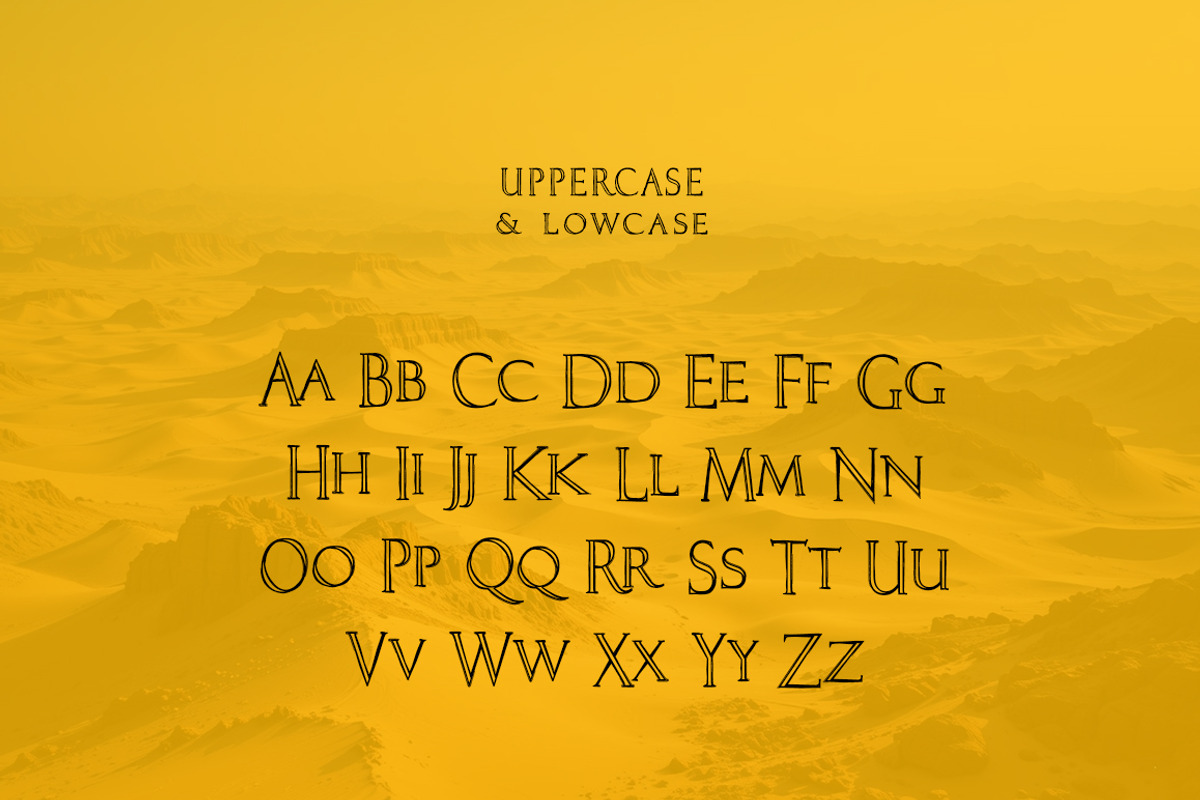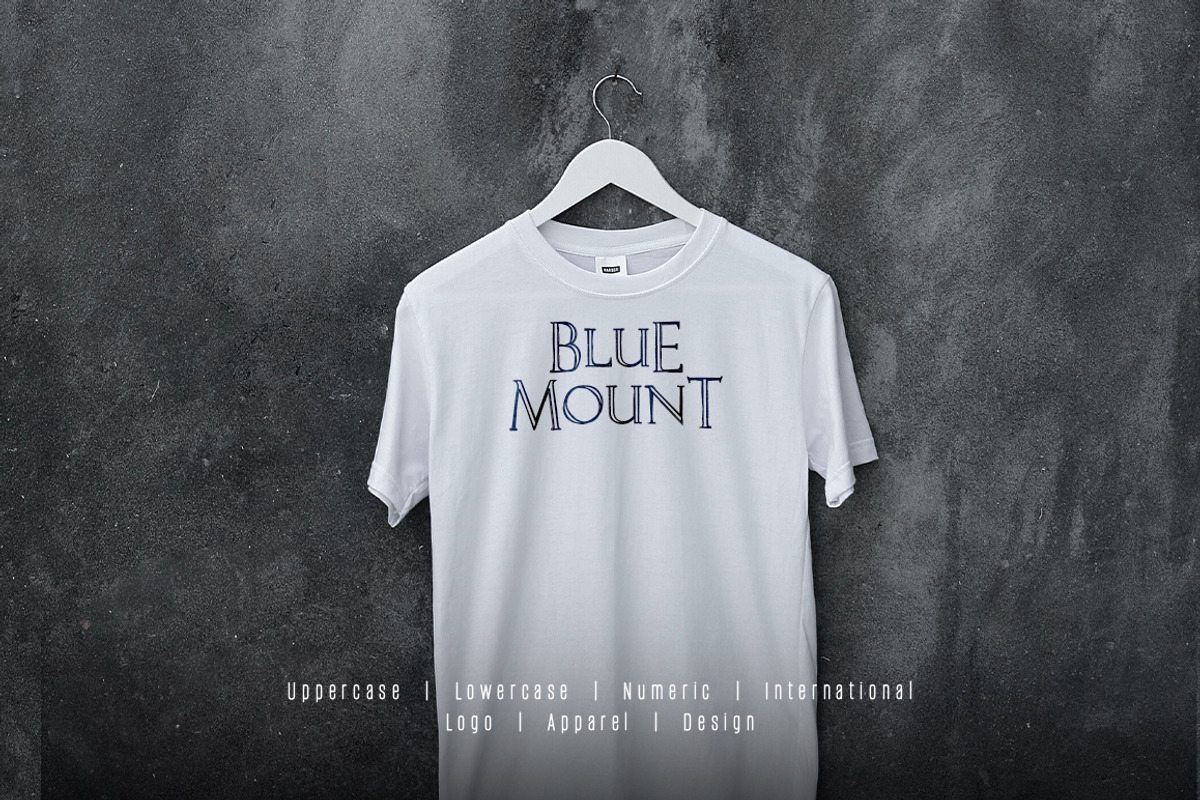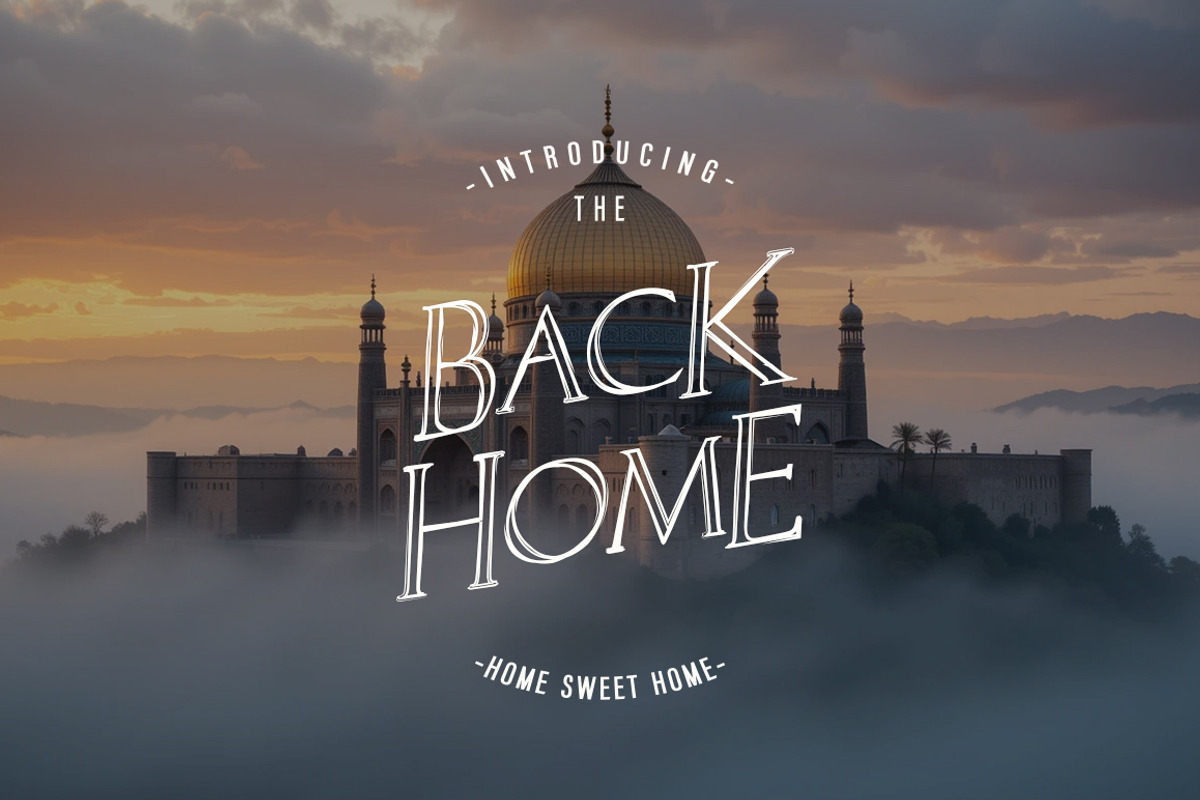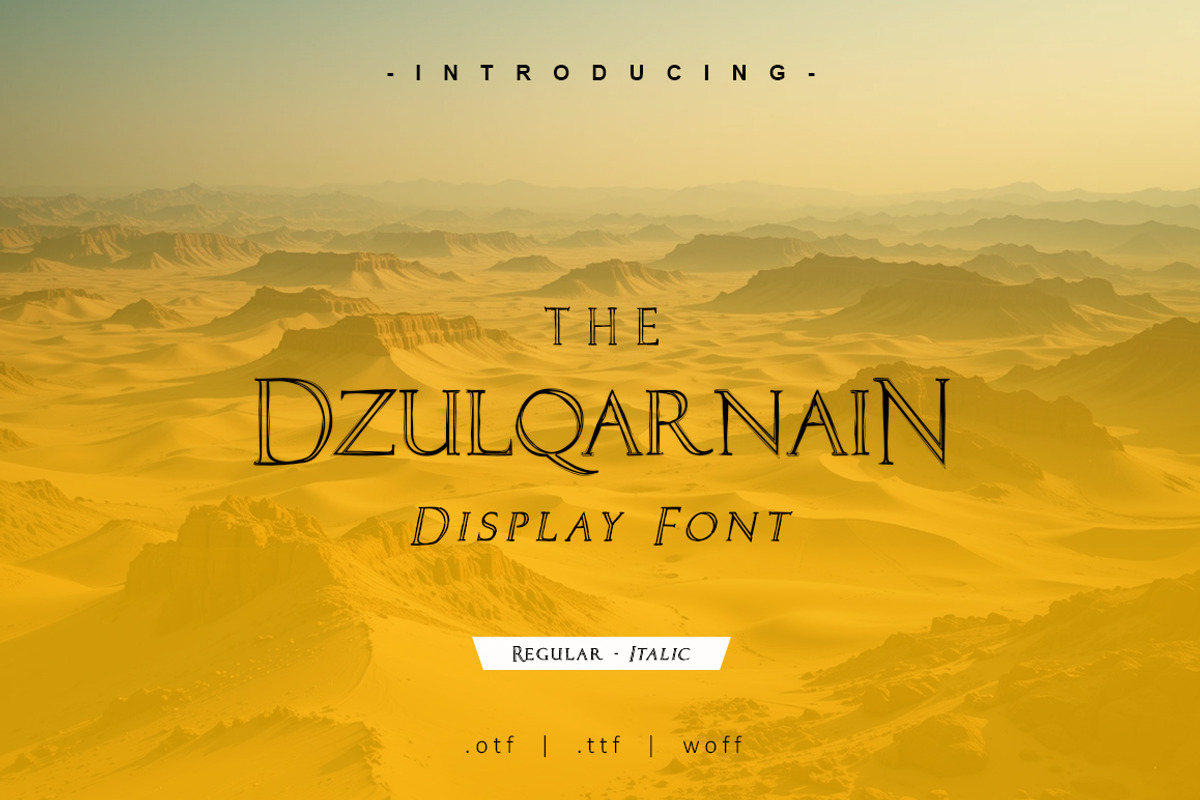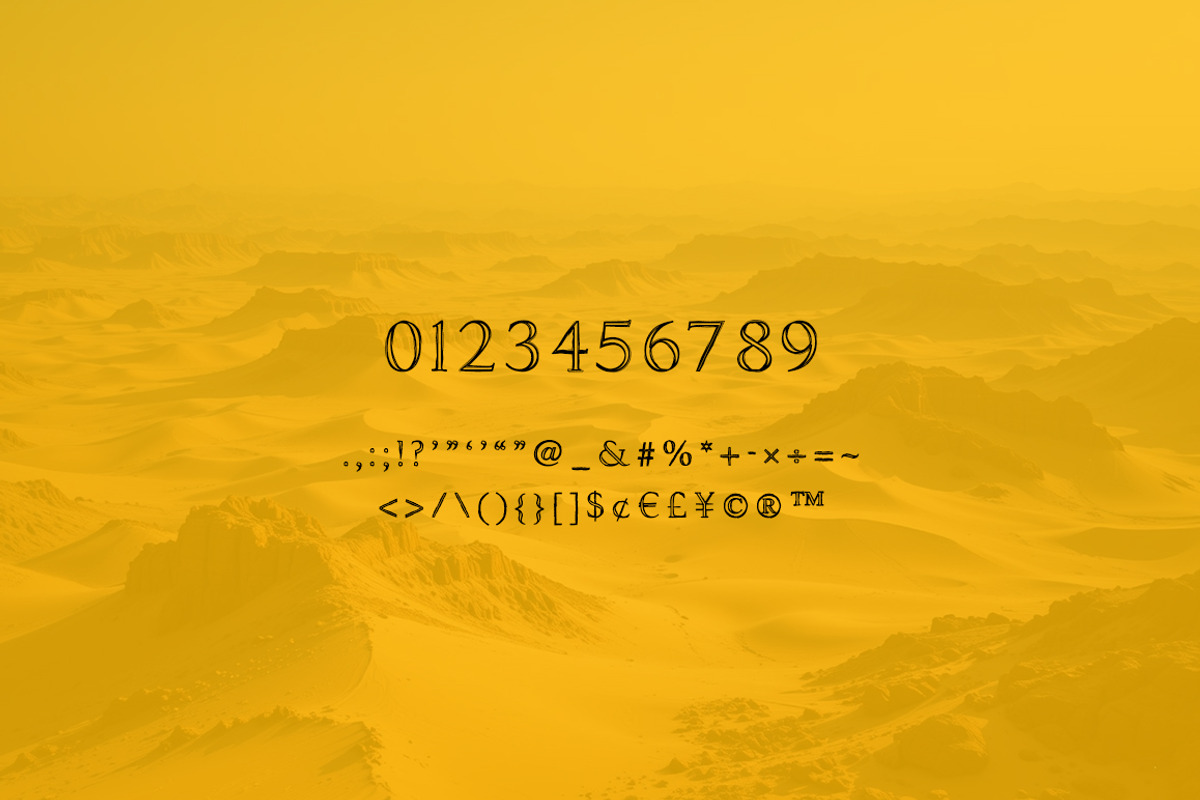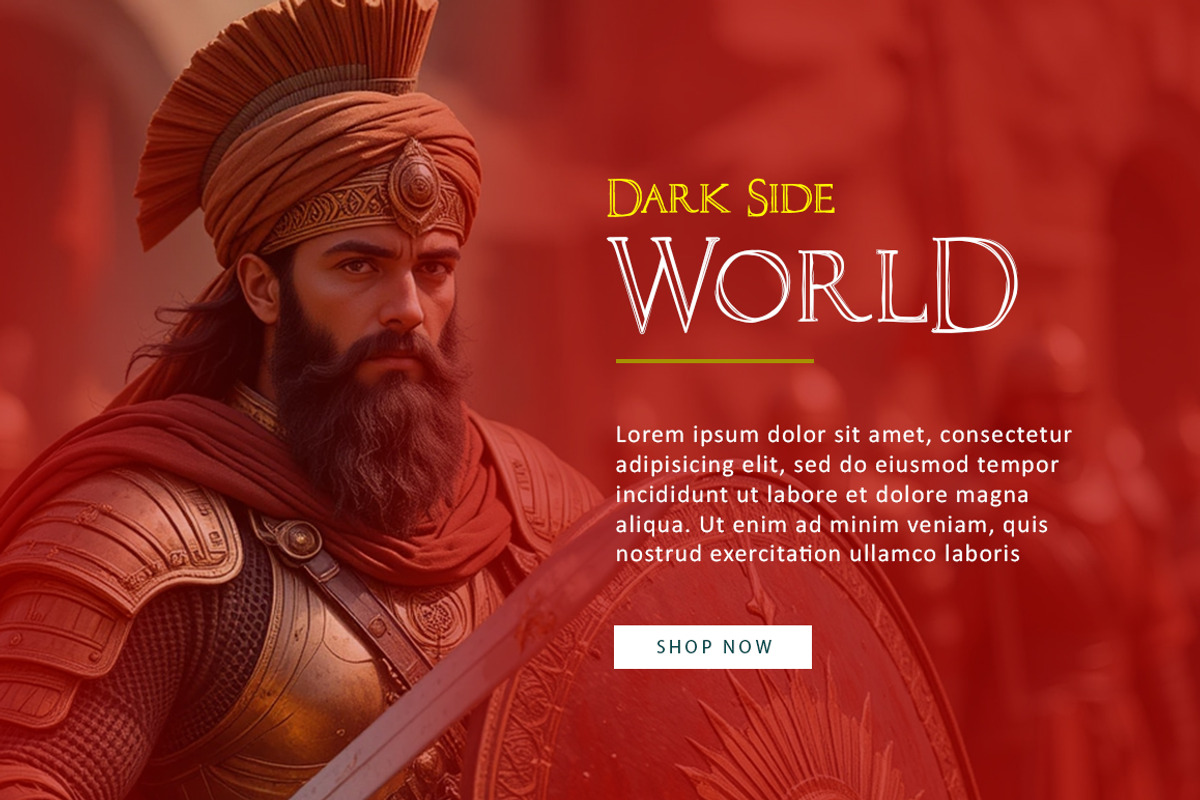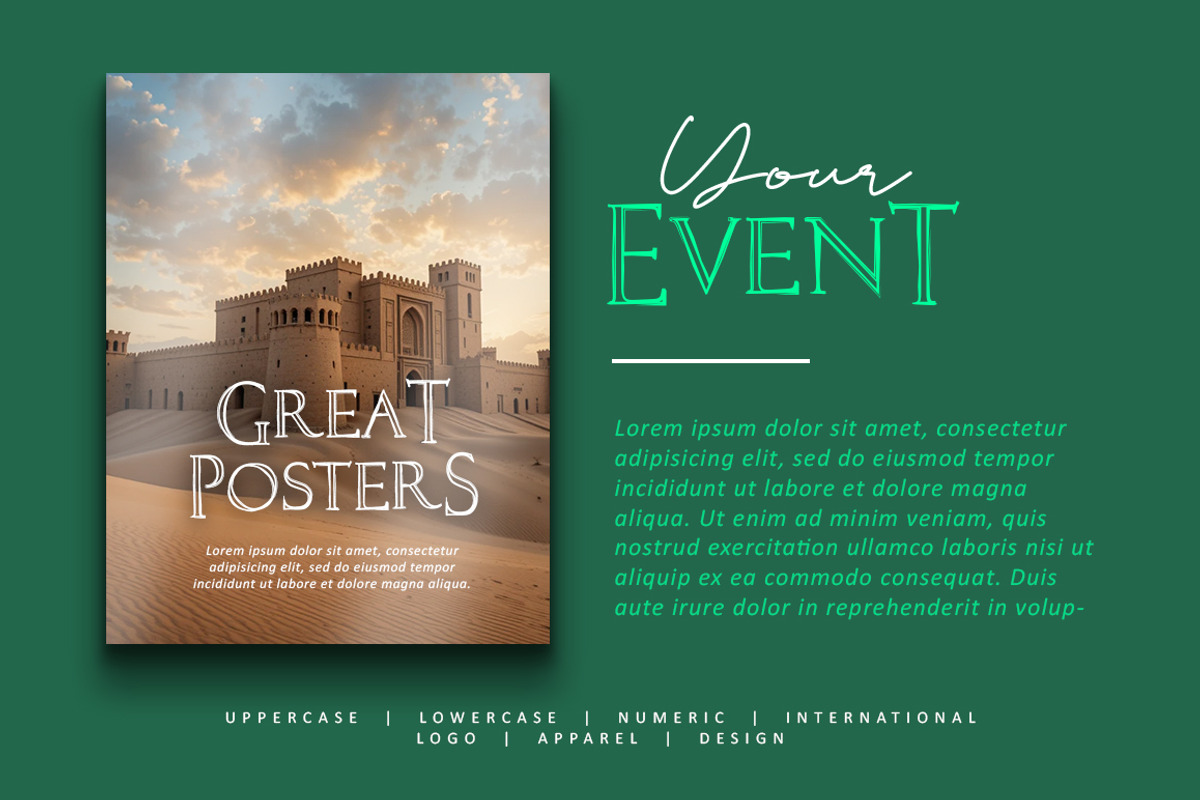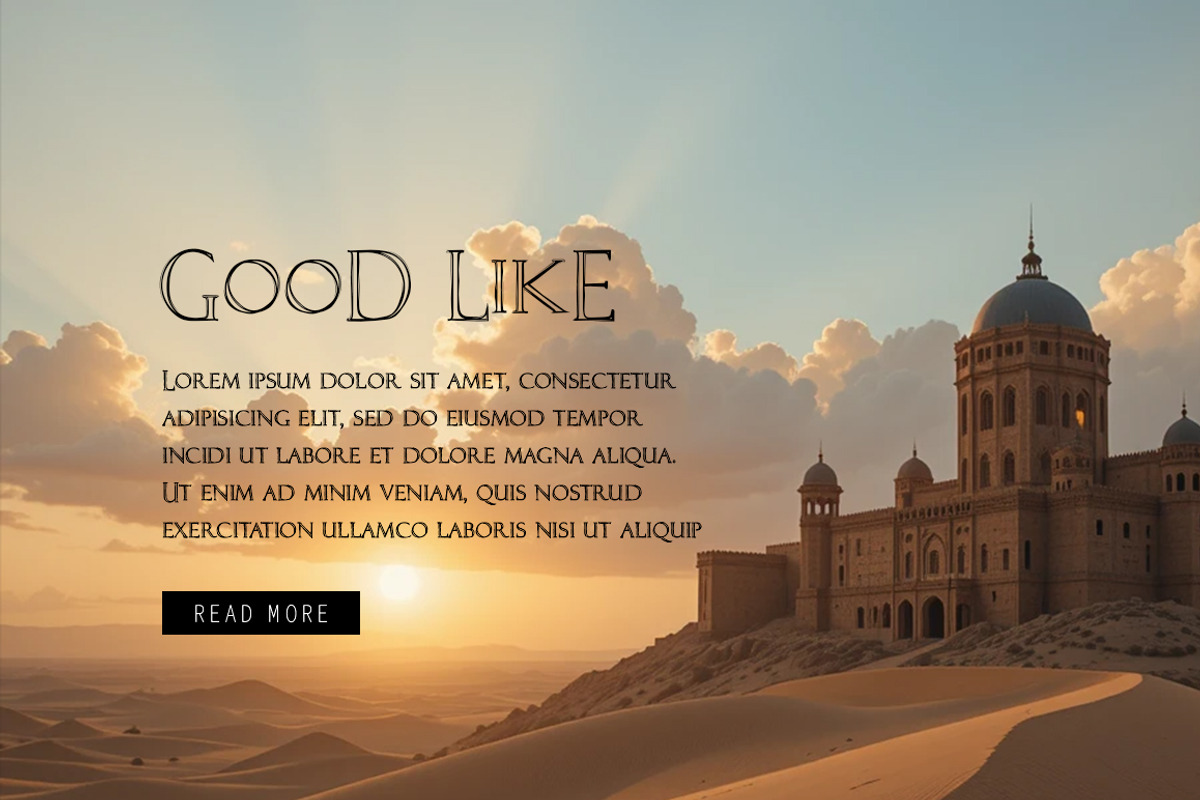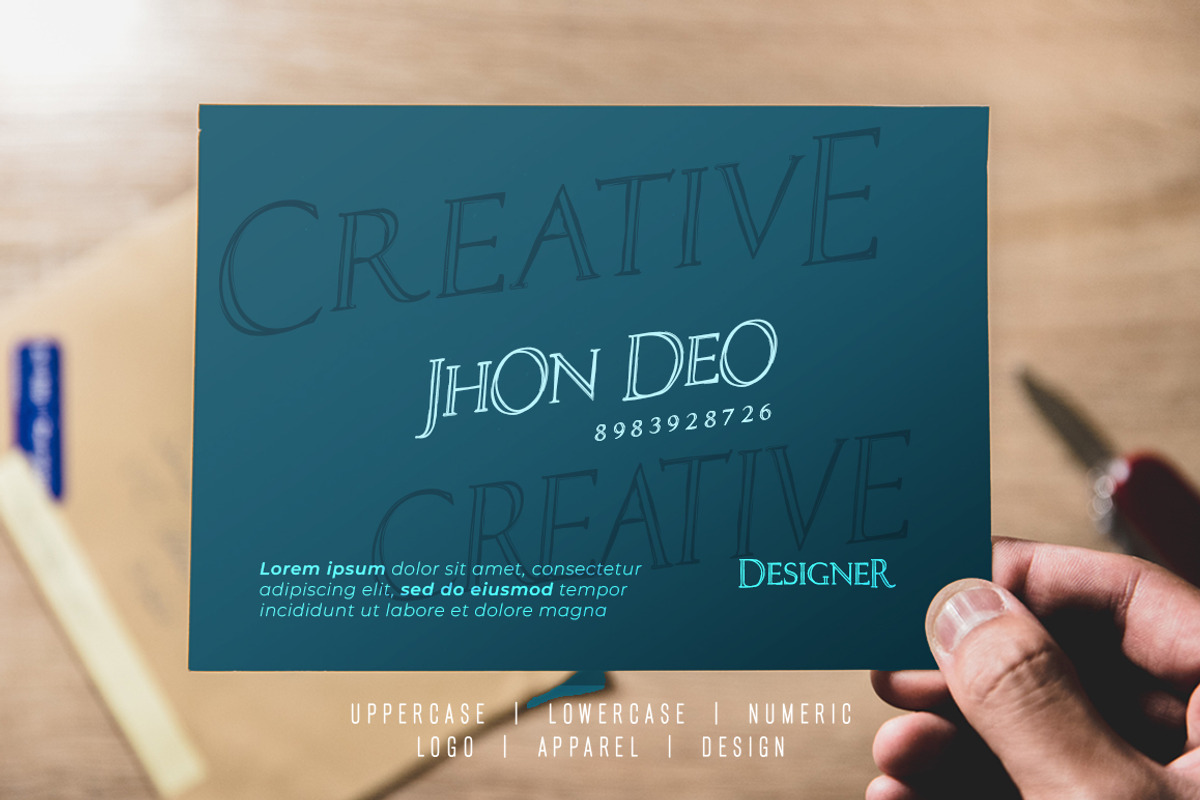
Dzulqarnain Font
Dzulqarnain Font very suitable for poster, for logo, music cover, clothing, and many many cool design projects. Dzulqarnain Font is uppercase, lowercas and numeric. Regular and Italic Font